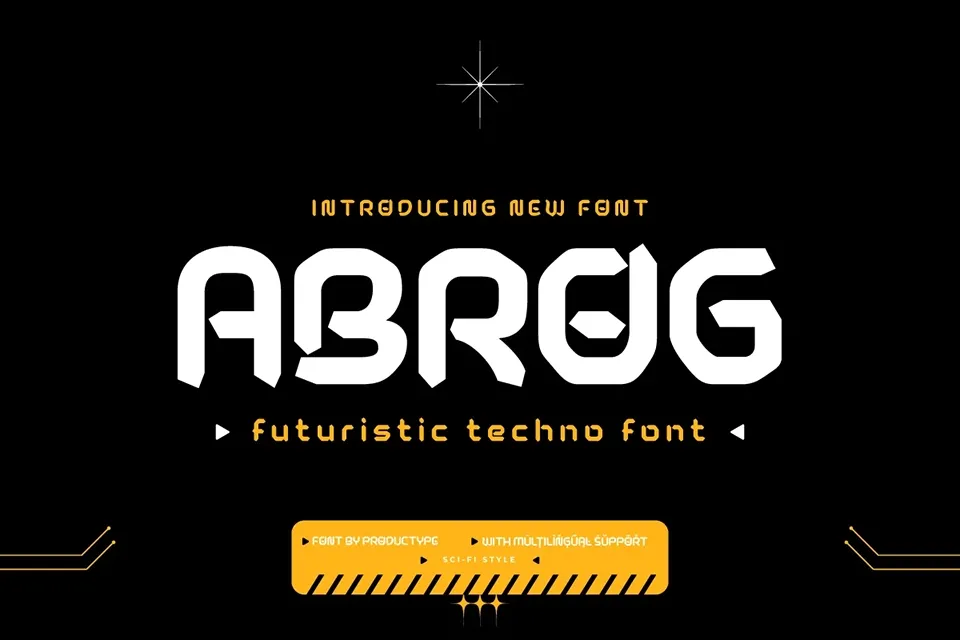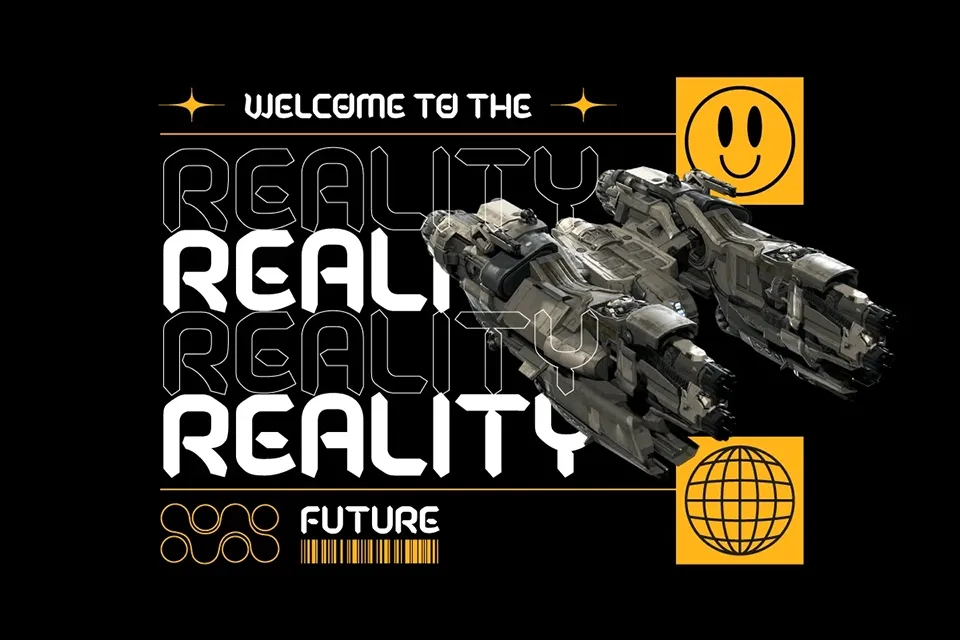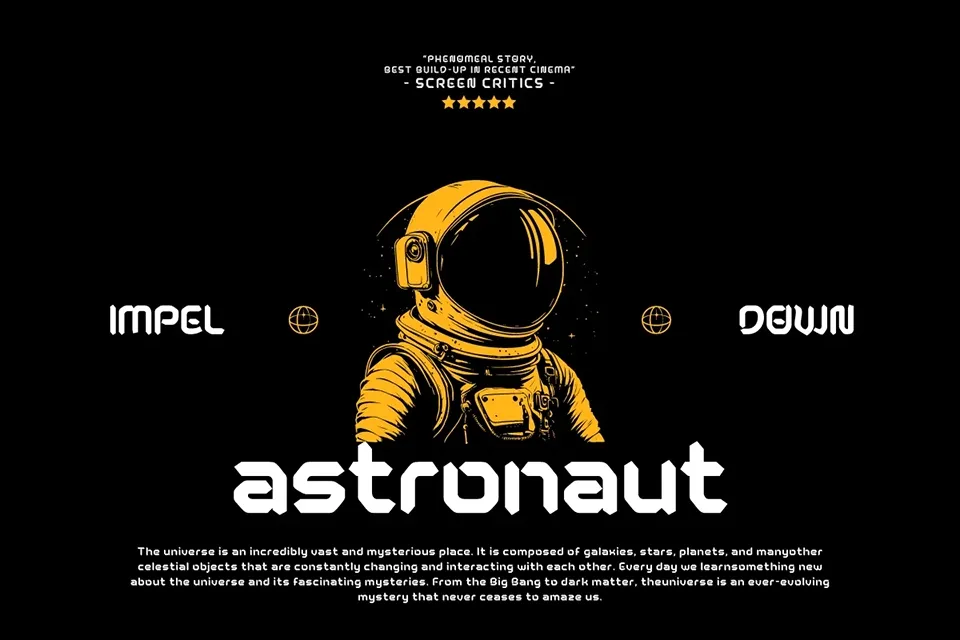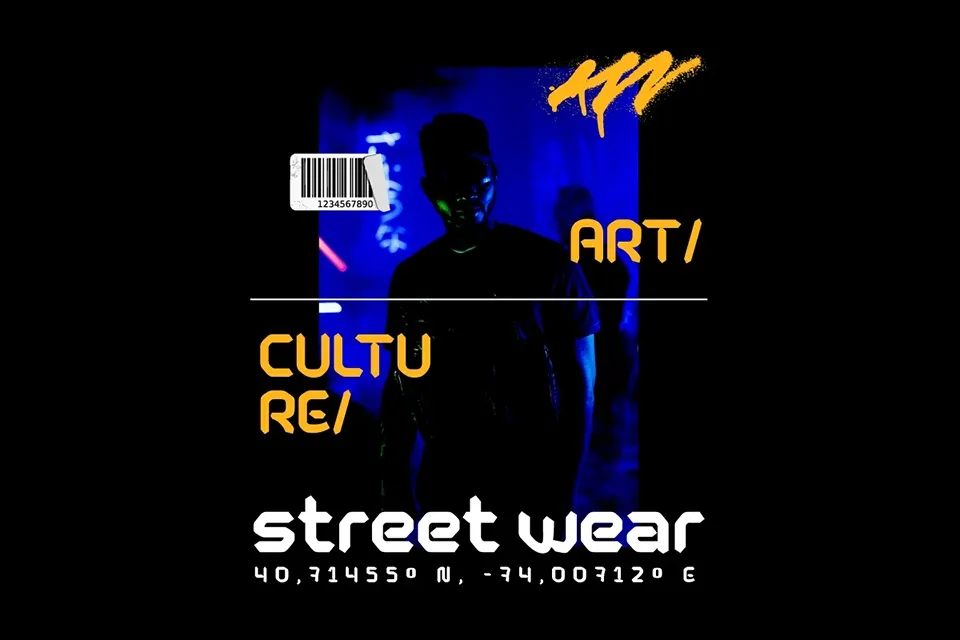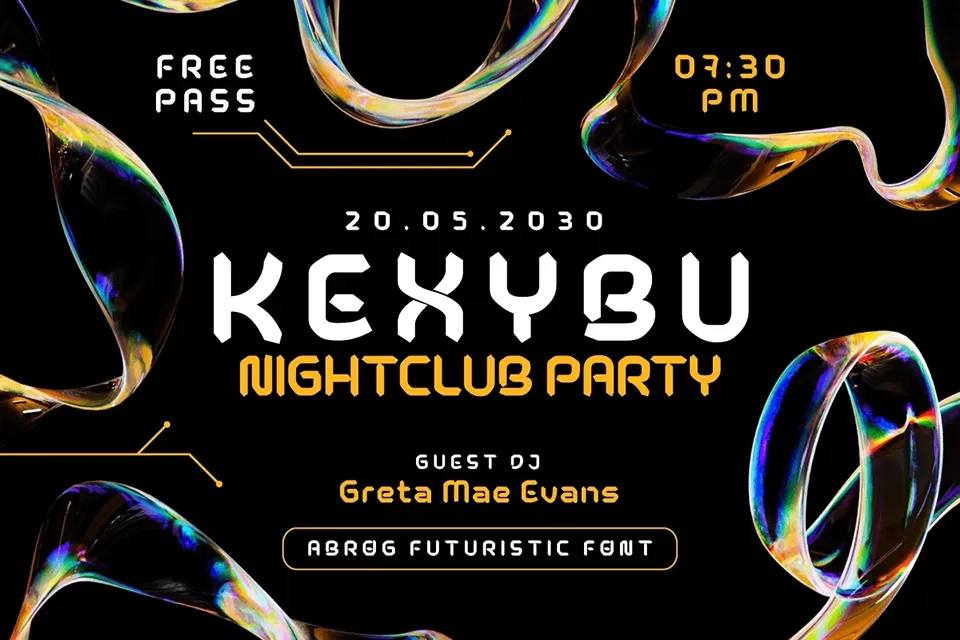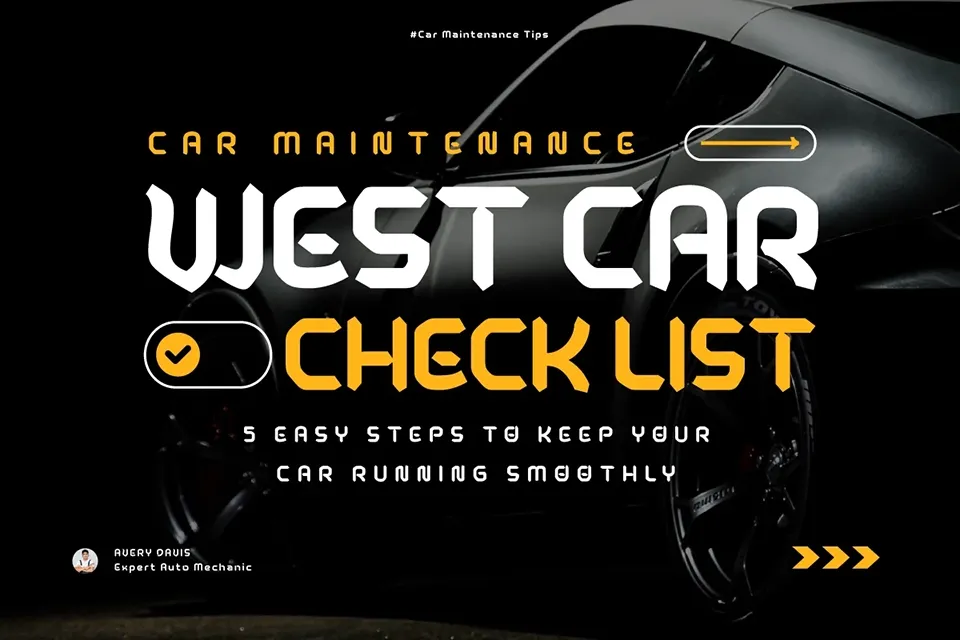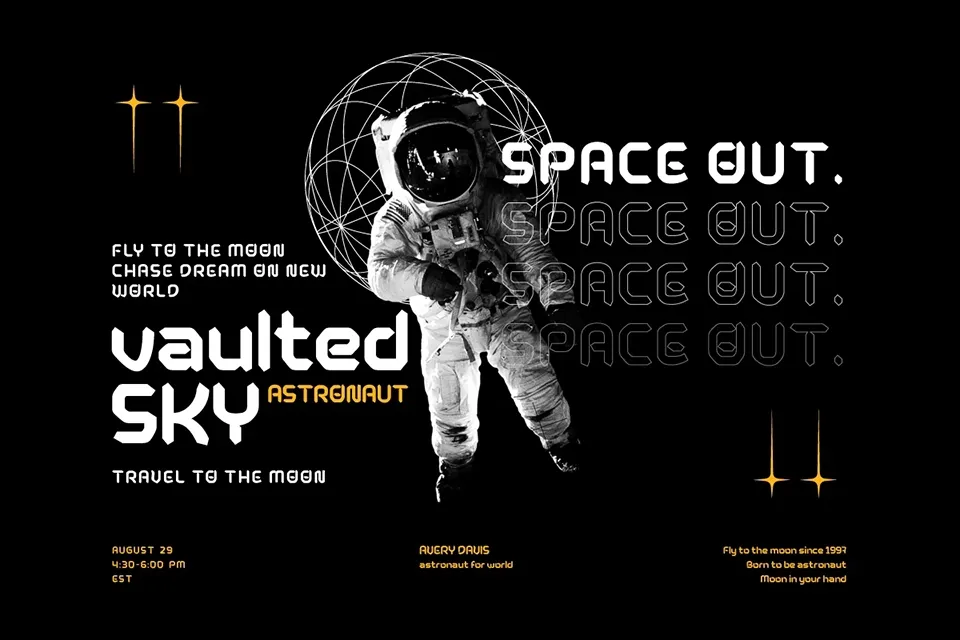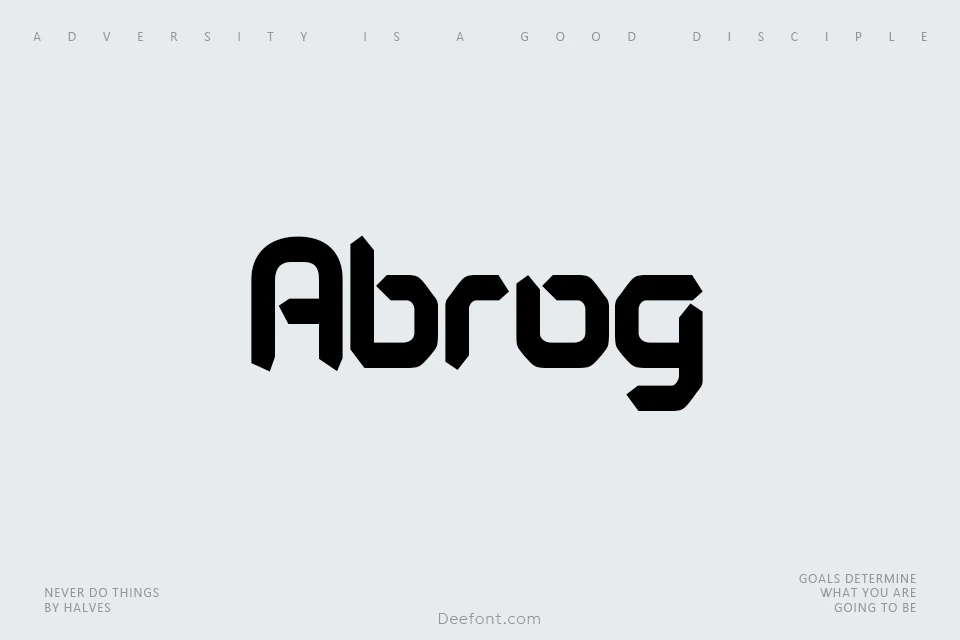
Abrog Font
Abrog Font is a cutting-edge futuristic techno typeface designed to bring a bold, modern aesthetic to your projects. With its sharp geometric shapes and sci-fi-inspired style, Abrog is perfect for branding, digital interfaces, posters, and any creative work that demands a sleek and innovative look. The font features multilingual support, making it versatile for global use. Its clean lines and dynamic design ensure readability while adding a unique visual flair. Whether you’re working on tech-related designs or futuristic themes, Abrog Font is the ideal choice to make your text stand out with impact and sophistication.